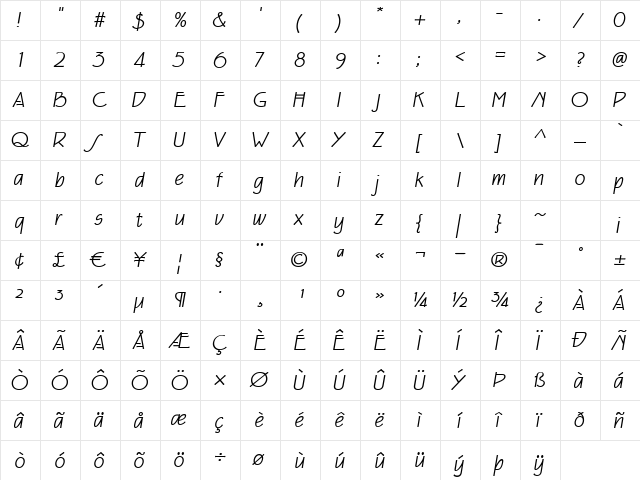
P22 Eaglefeather Italic
| Foundry | P22 type foundry |
| Designer | David Siegel and Carol Toriumi-Lawrence |
Design Context for P22 Eaglefeather Typeface
P22 Eaglefeather is a composed and adaptable typeface that performs quietly and consistently across a wide range of design contexts. Its italic angle brings a sense of urgency and motion to the letterforms.